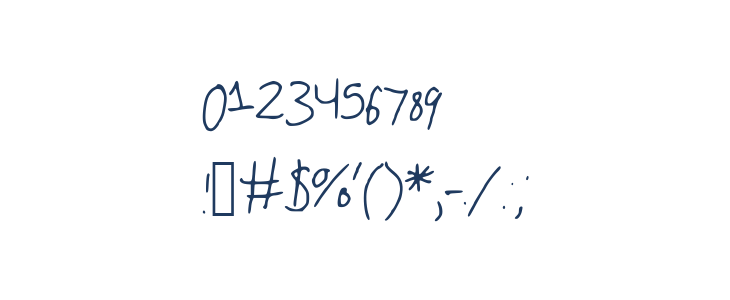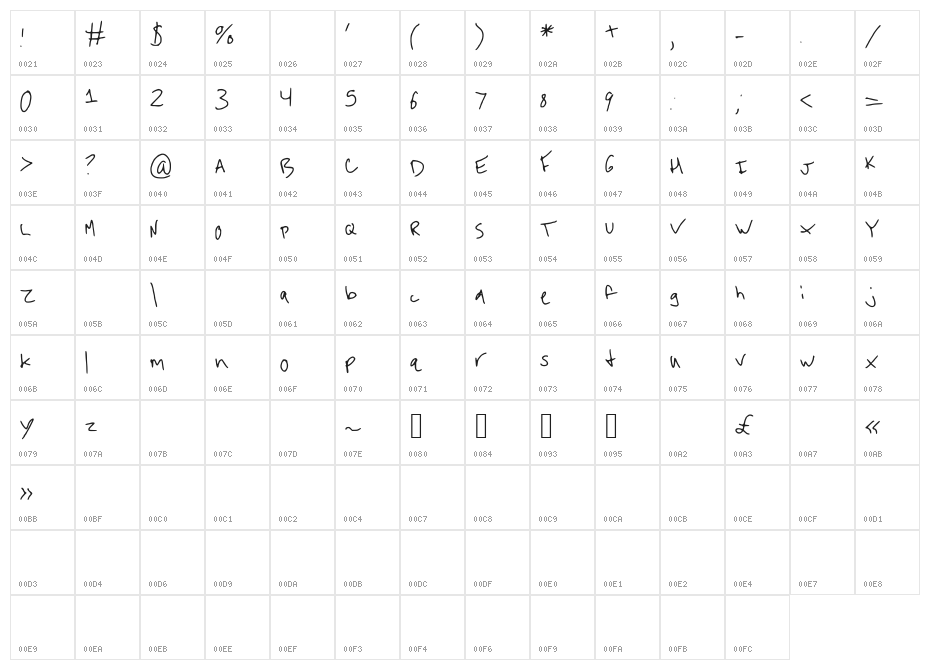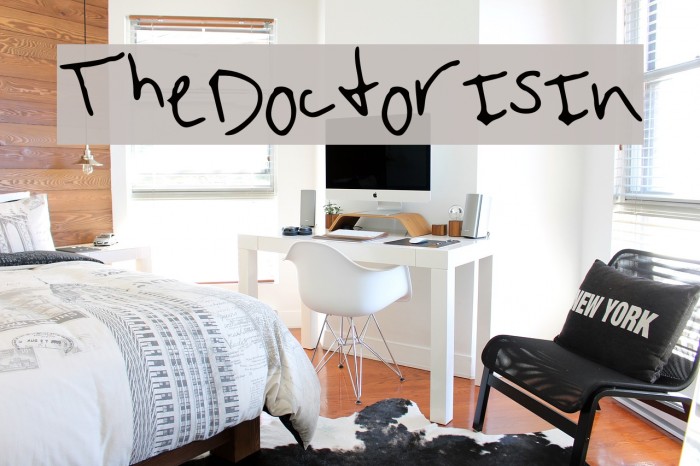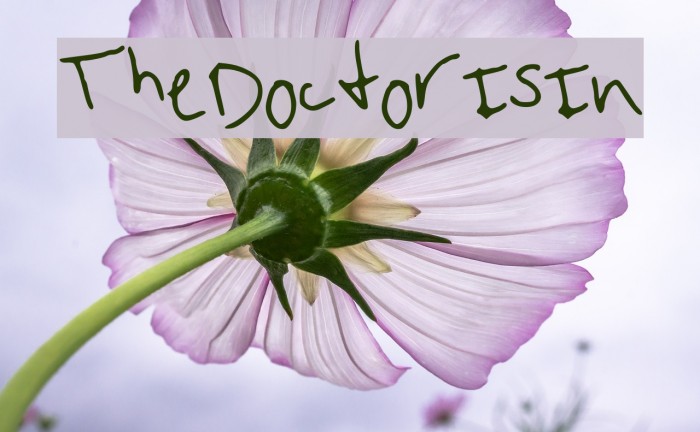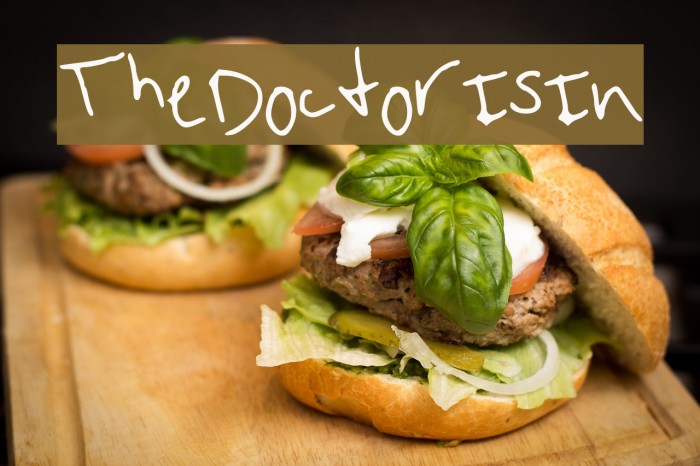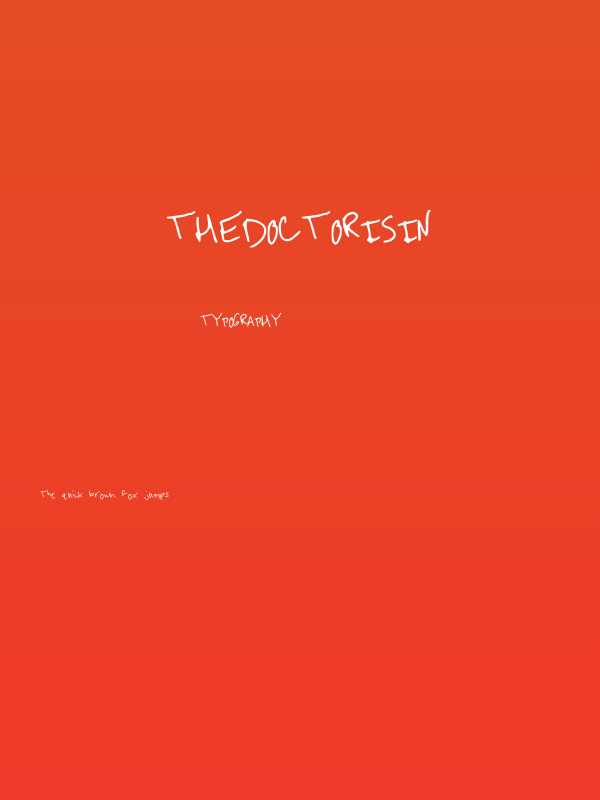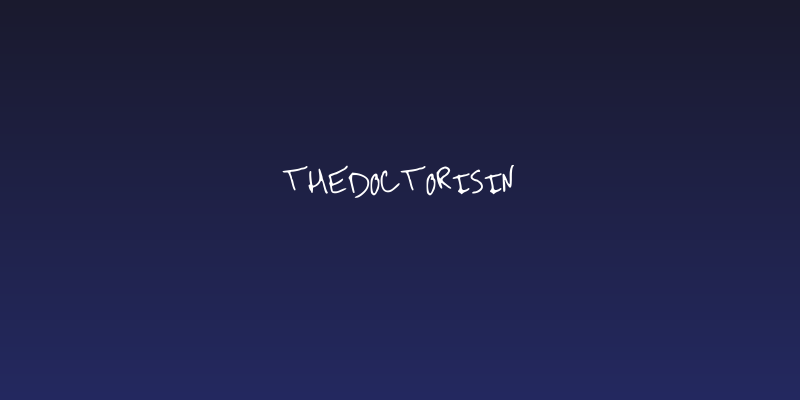
TheDoctorIsIn Font
TheDoctorIsIn Description
This font exudes a casual, handwritten style with a playful and informal appearance. The letters are unevenly spaced and slightly tilted, giving it a dynamic and spontaneous feel. The strokes are consistent in thickness, maintaining a uniform look throughout. The uppercase and lowercase letters are distinct yet harmonize well together, while the numerals and special characters follow the same handwritten aesthetic. This font is perfect for projects that require a personal touch or a relaxed vibe, such as greeting cards, invitations, or informal branding materials.
| Use Case | Headlines, Informal text, Personal notes |
| Proposed Projects | Ideal for greeting cards, invitations, informal branding, and personal notes. |